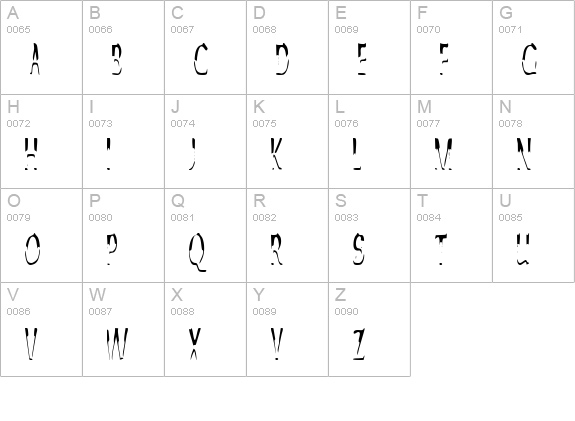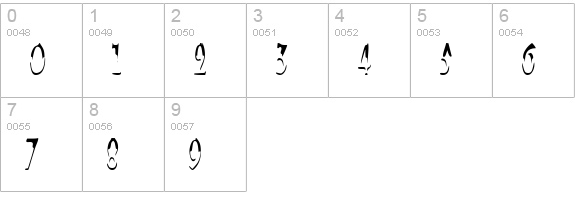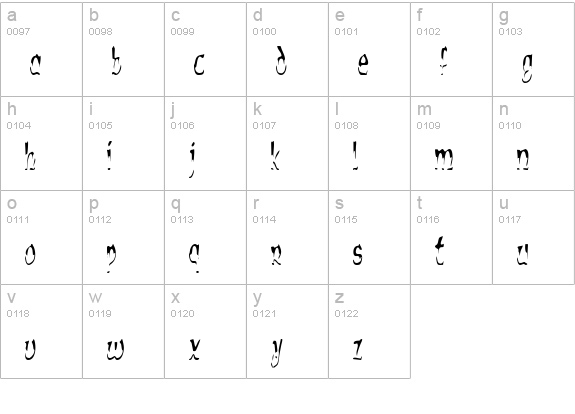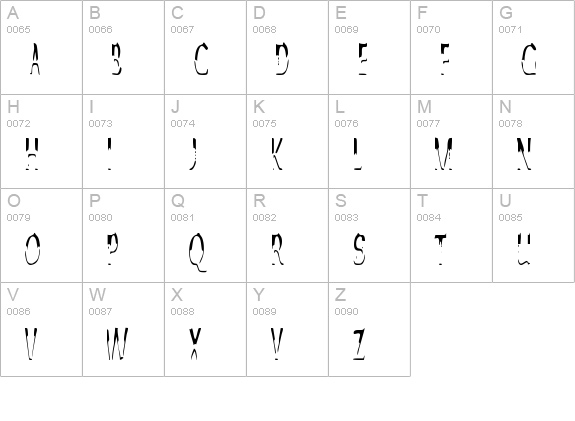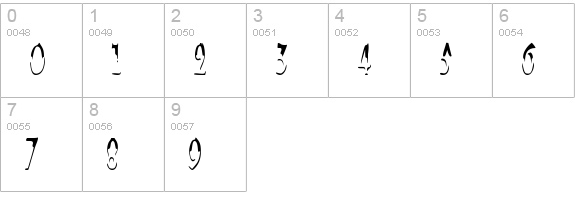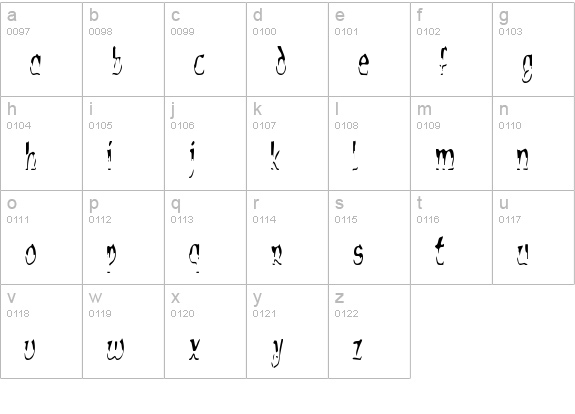
Alien Script Font Details
Alien Script font is a futuristic and otherworldly typeface that will transport your design projects to a realm beyond this world. With its unique and mysterious glyphs, this font captures the essence of extraterrestrial communication and interstellar adventures. The intricate curves and sharp angles of Alien Script give it a distinct and captivating appearance that is sure to make your text stand out. Best of all, Alien Script is available for free download at FontsMarket.com. This means you can easily incorporate this captivating font into your projects without breaking the bank. Whether you're working on a sci-fi novel cover, a space-themed poster, or a futuristic website design, Alien Script is the perfect choice to add an element of intrigue and otherworldly charm. Don't miss out on the opportunity to enhance your designs with this fantastic font – download Alien Script for free today!